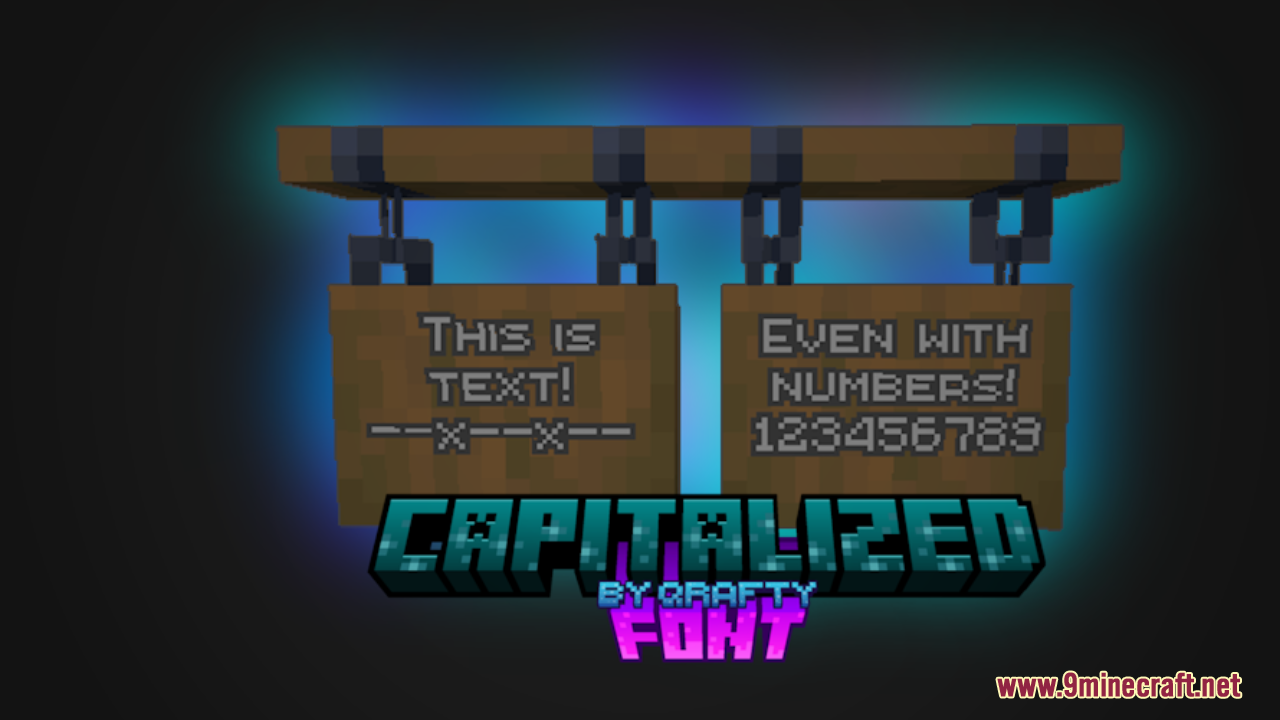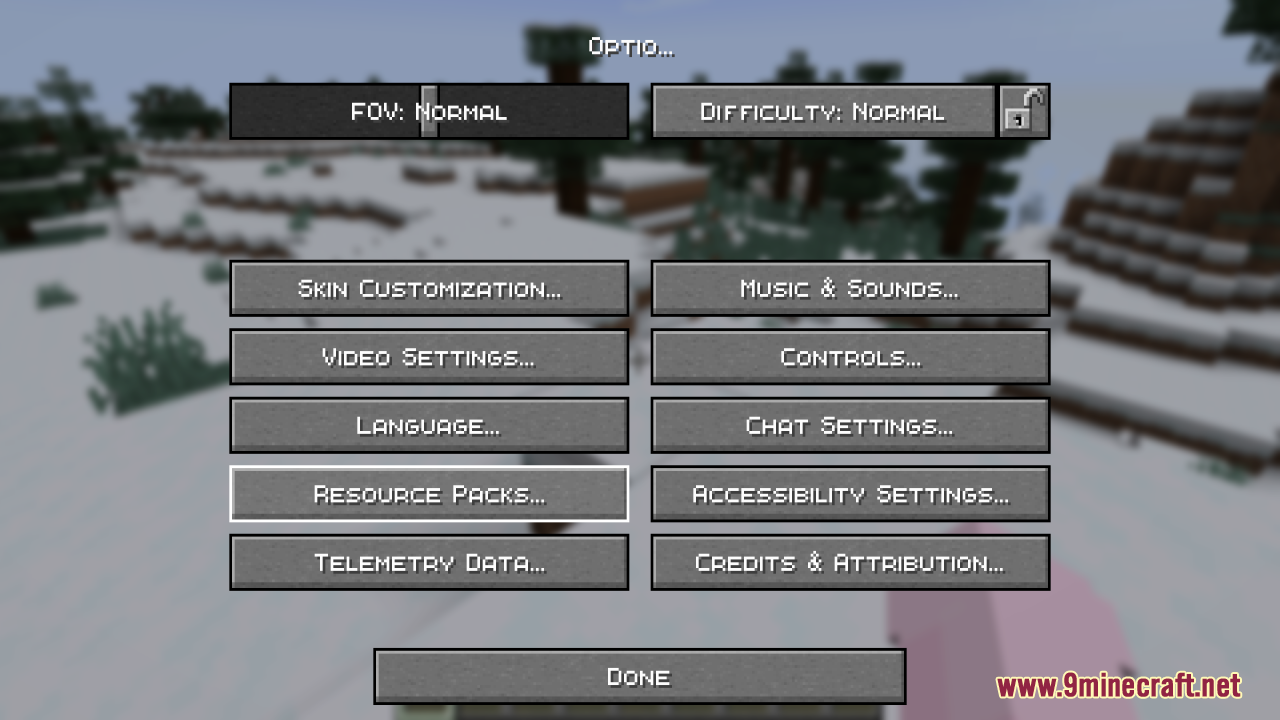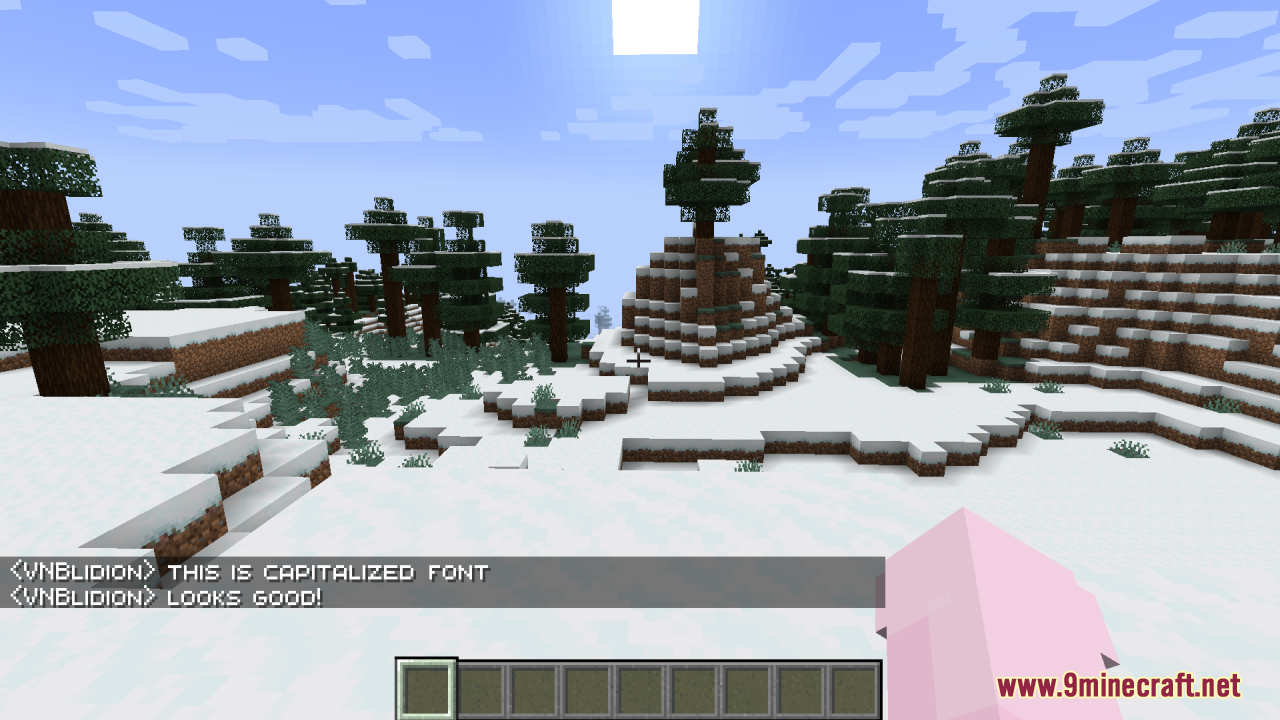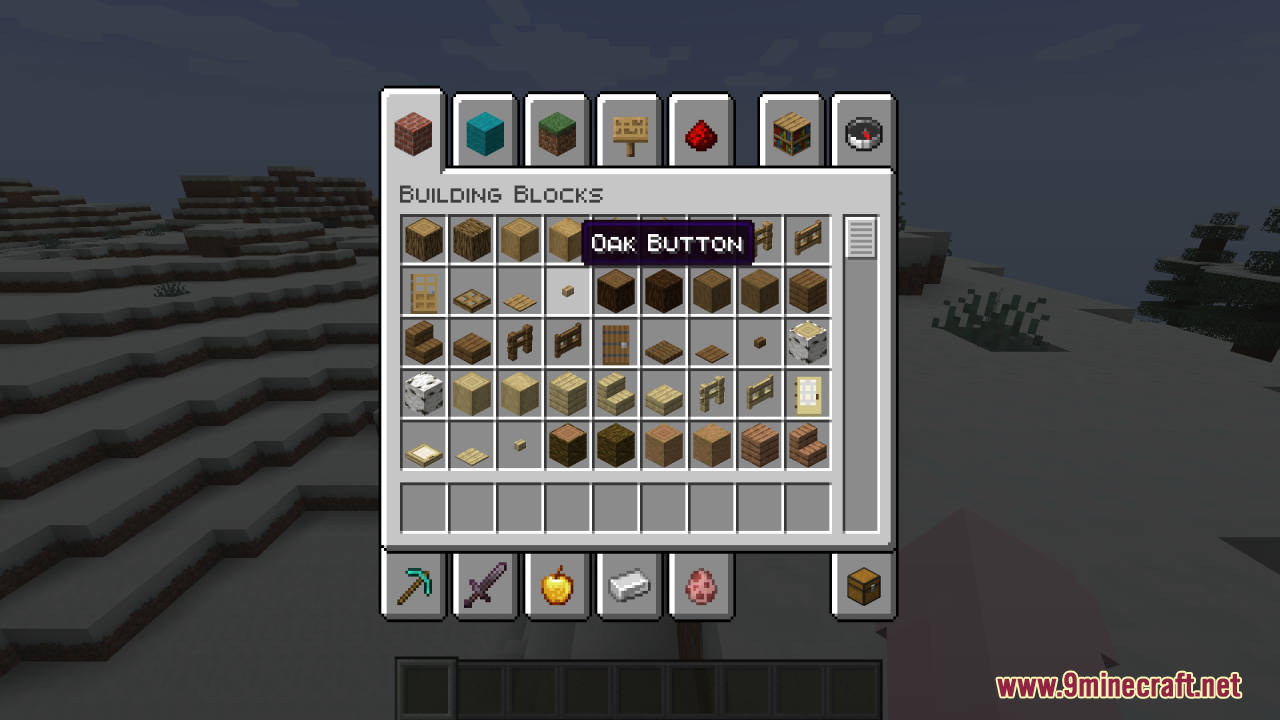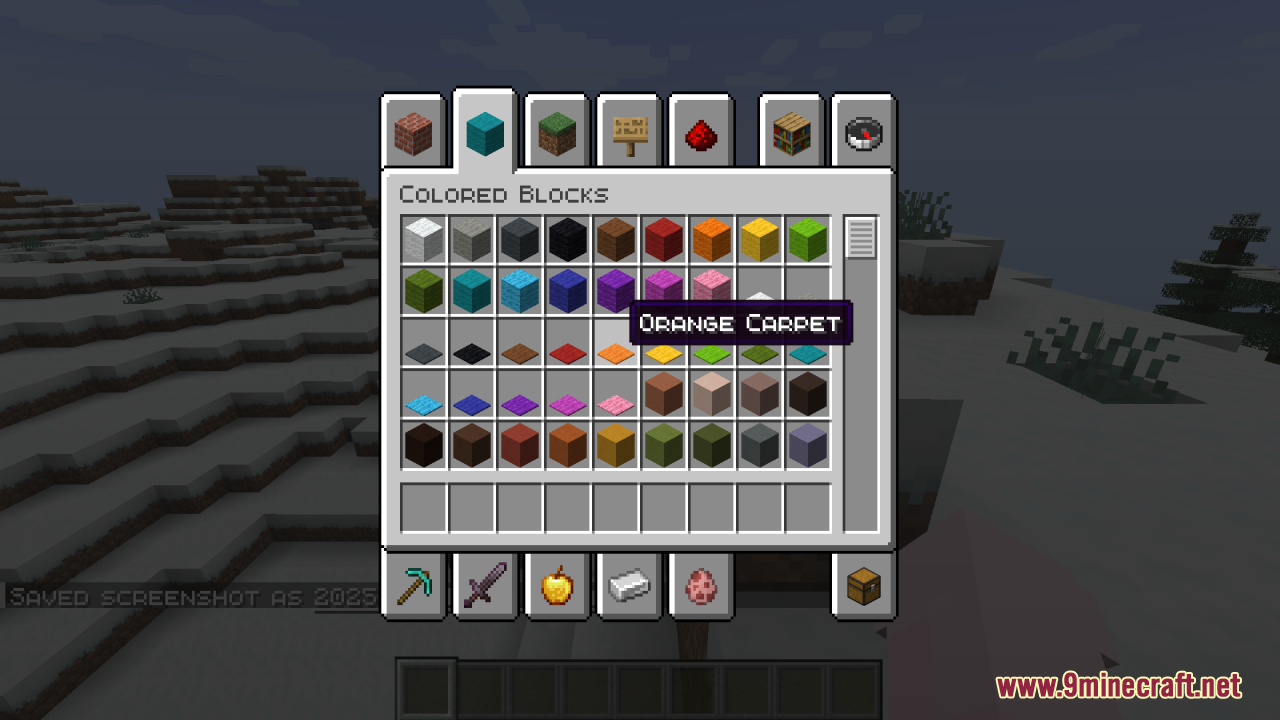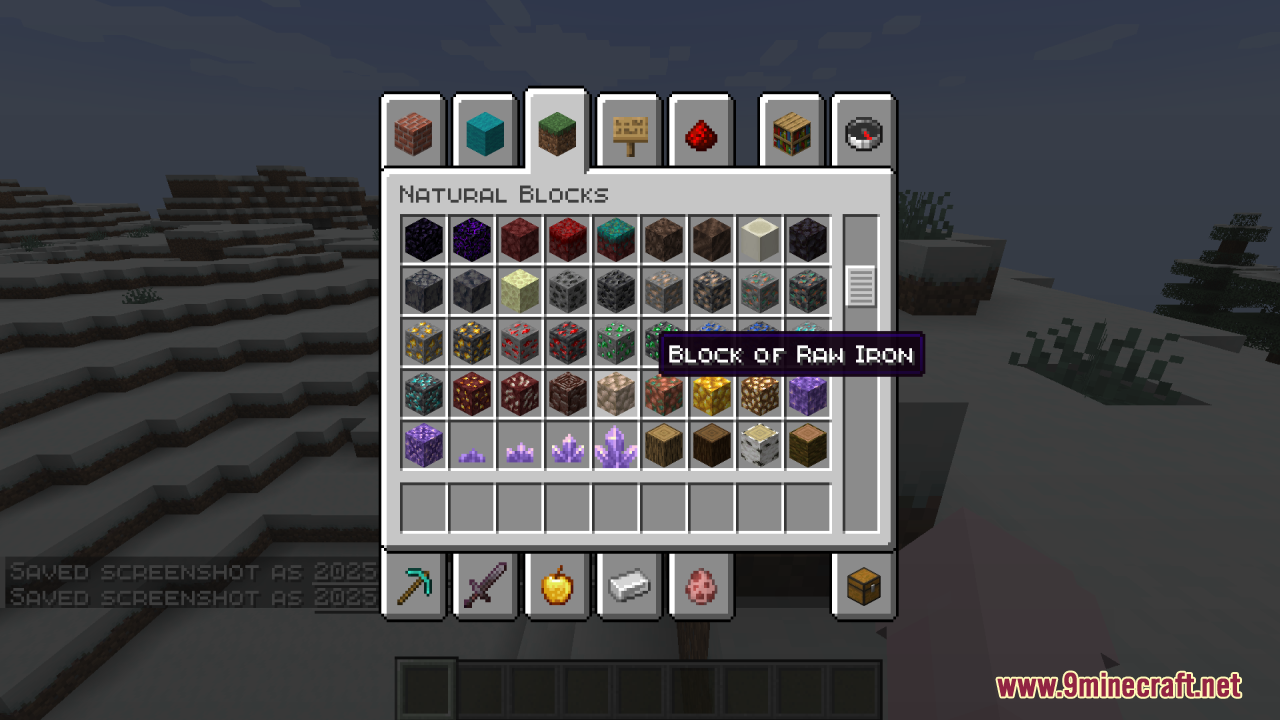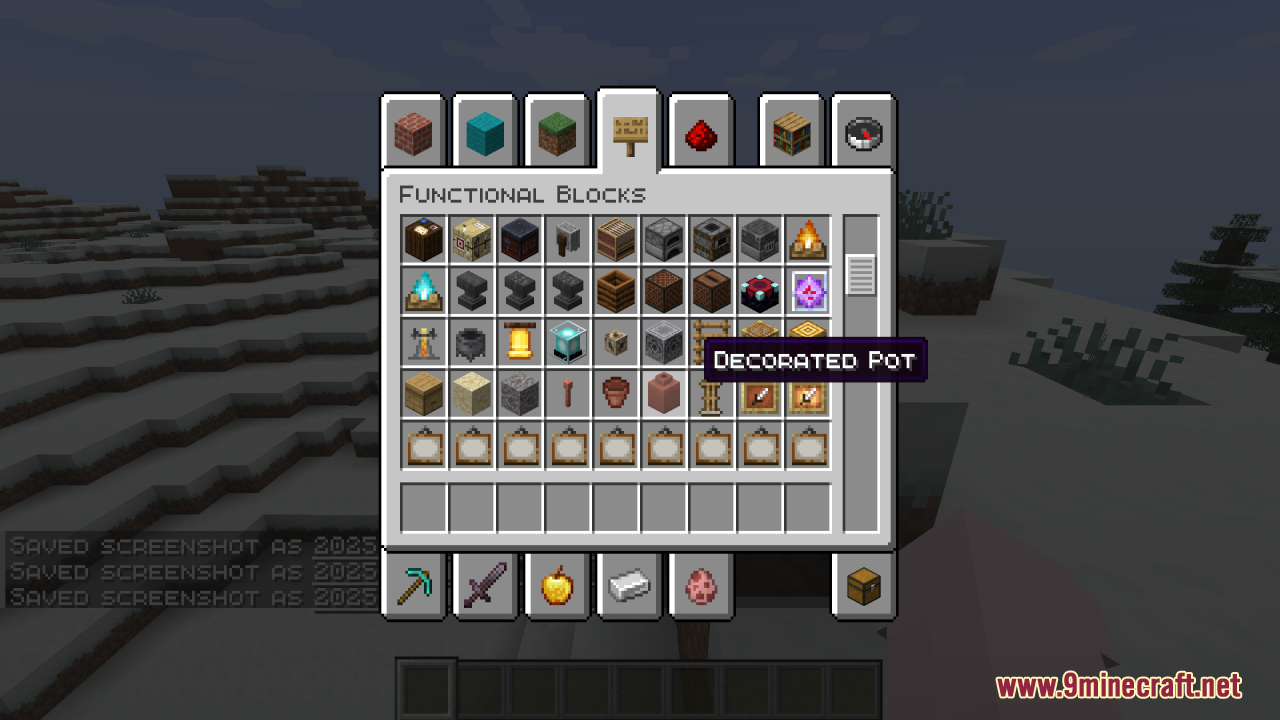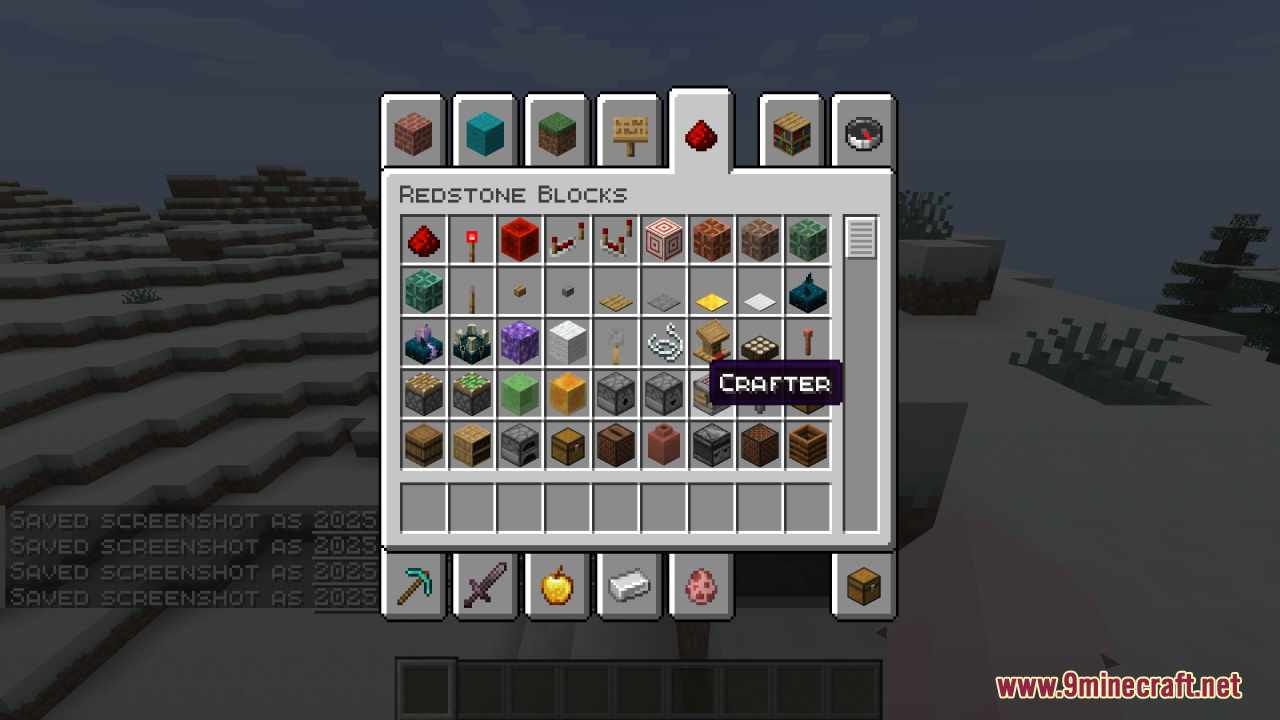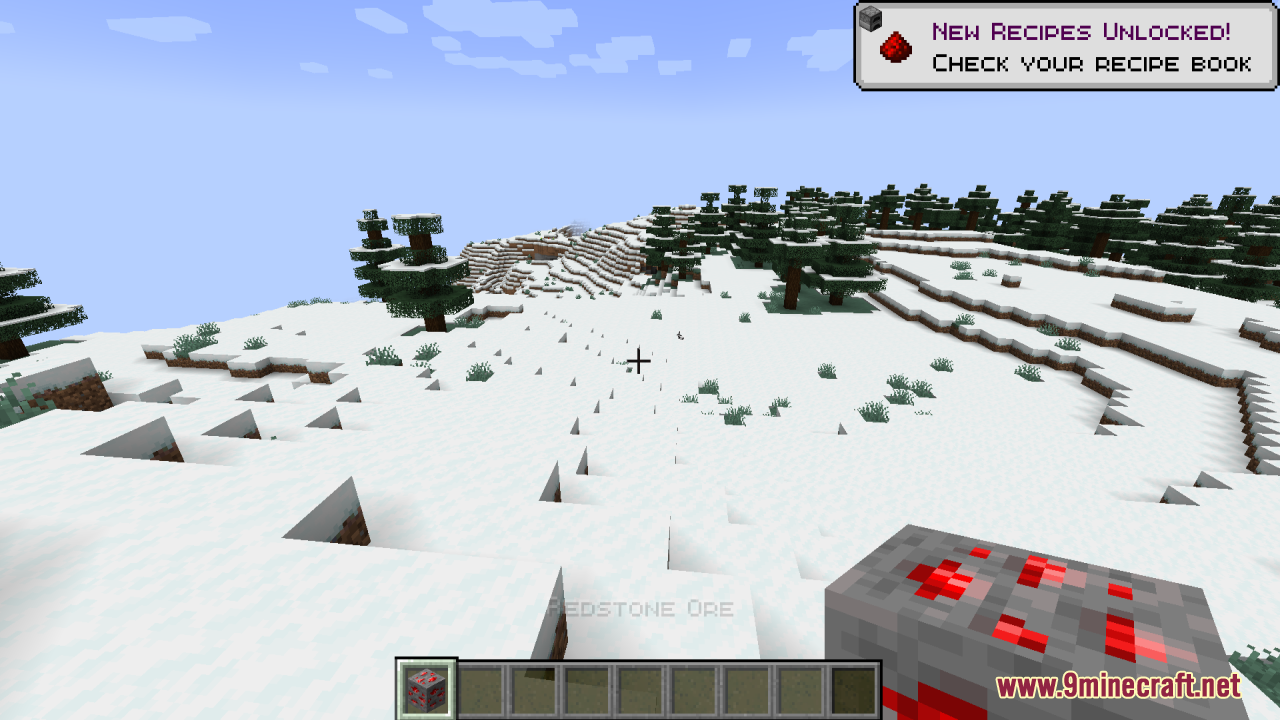
Qrafty’s Capitalized Font Resource Pack (26.2, 1.20.1) – Texture Pack
Qrafty’s Capitalized Font Resource Pack modifies Minecraft’s default font by replacing lowercase letters with smaller uppercase versions, similar to styles used on some servers. This creates a consistent, uniform, and bold typographic look throughout the game’s interface. Features:
- All lowercase letters are converted into smaller uppercase versions.
- Numbers and special characters are adjusted for better height consistency.
- Works with chat, menus, signs, and in-game text.
- Designed to enhance readability and aesthetics.
Whether you want a cleaner UI, a server-style font, or just a fresh new look for your game’s text, this clean and slight pack brings a simple yet impactful typographic transformation.